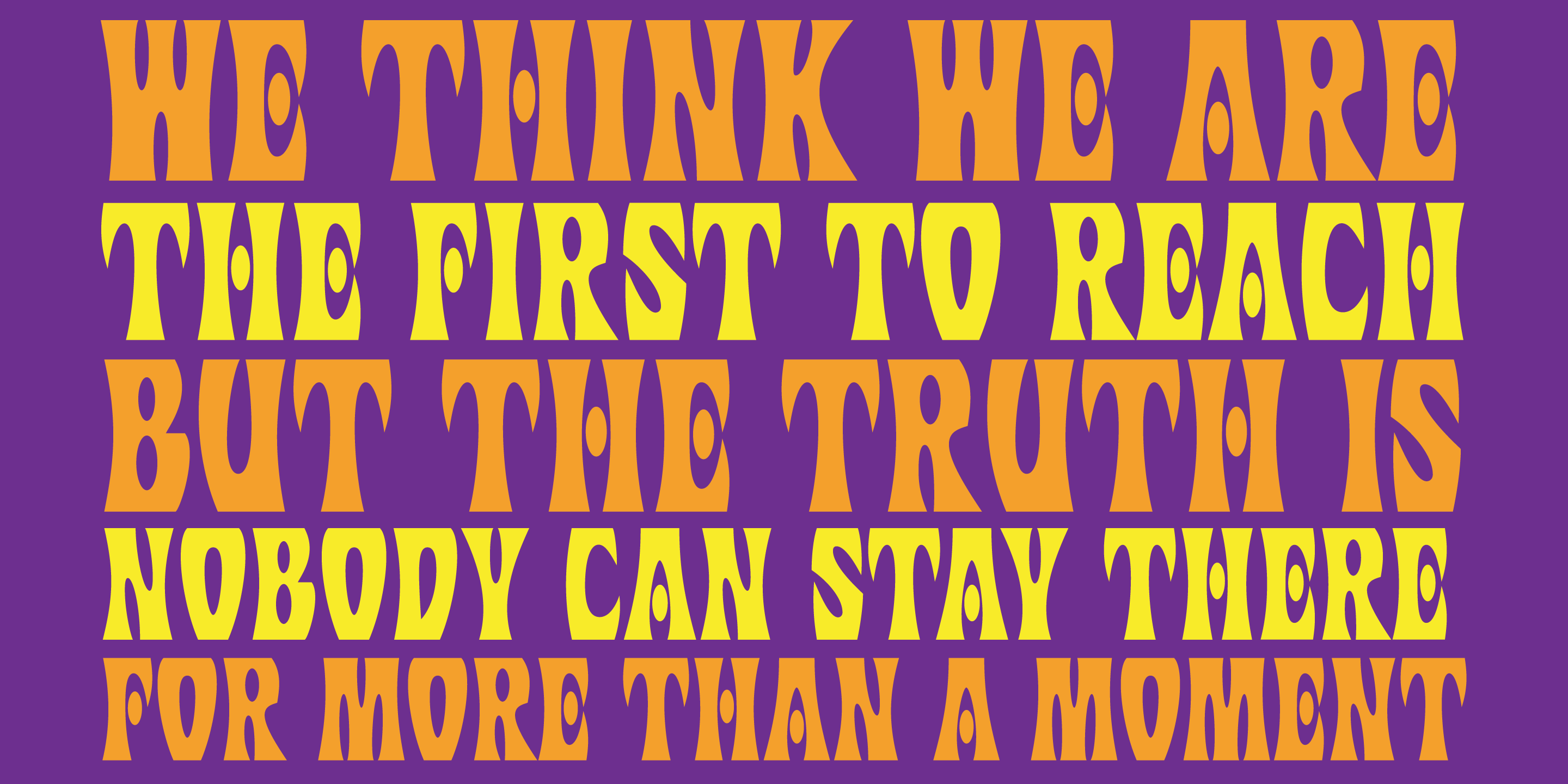
Johnny Font is perfect for casual brand identities, friendly restaurant logos, children's book covers, playful social media campaigns, youth-oriented marketing materials, comic book lettering, fun event posters, relaxed café signage, and approachable website headers. This charming typeface brings warmth and personality to both digital and print design applications with its inviting character.
Johnny Font is exciting because it combines approachable friendliness with versatile functionality, making it an exceptional choice for designers who want to create welcoming, personable designs that connect with audiences on an emotional level. Its balanced letterforms and casual elegance provide the perfect combination of readability and character, ensuring your projects feel both professional and genuinely human.
The Johnny Font family includes multiple weight options and stylistic variations, featuring regular, medium, and bold weights with complementary italic styles. Each variation maintains consistent friendly aesthetics while offering flexibility for different design needs, allowing creators to build cohesive brand systems that reflect approachable professionalism and genuine personality.
Whether you're developing brand identities for service businesses, family-oriented companies, or lifestyle brands, Johnny Font Free Download delivers authentic appeal that resonates with diverse audiences seeking genuine connection. This premium typeface offers designers the perfect tool for creating designs that communicate reliability, warmth, and accessibility effectively. The font's versatile character makes it ideal for both headline and body text applications, ensuring consistent readability and friendly appeal. Download Johnny Font today and bring genuine human warmth to your creative projects with this remarkable typography solution.